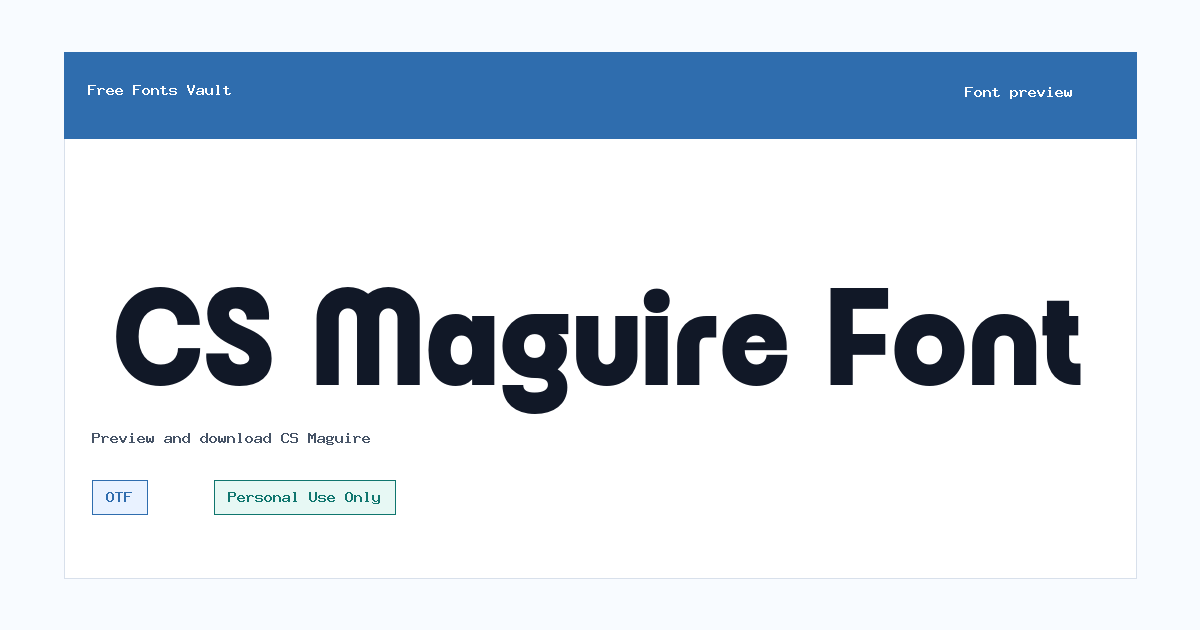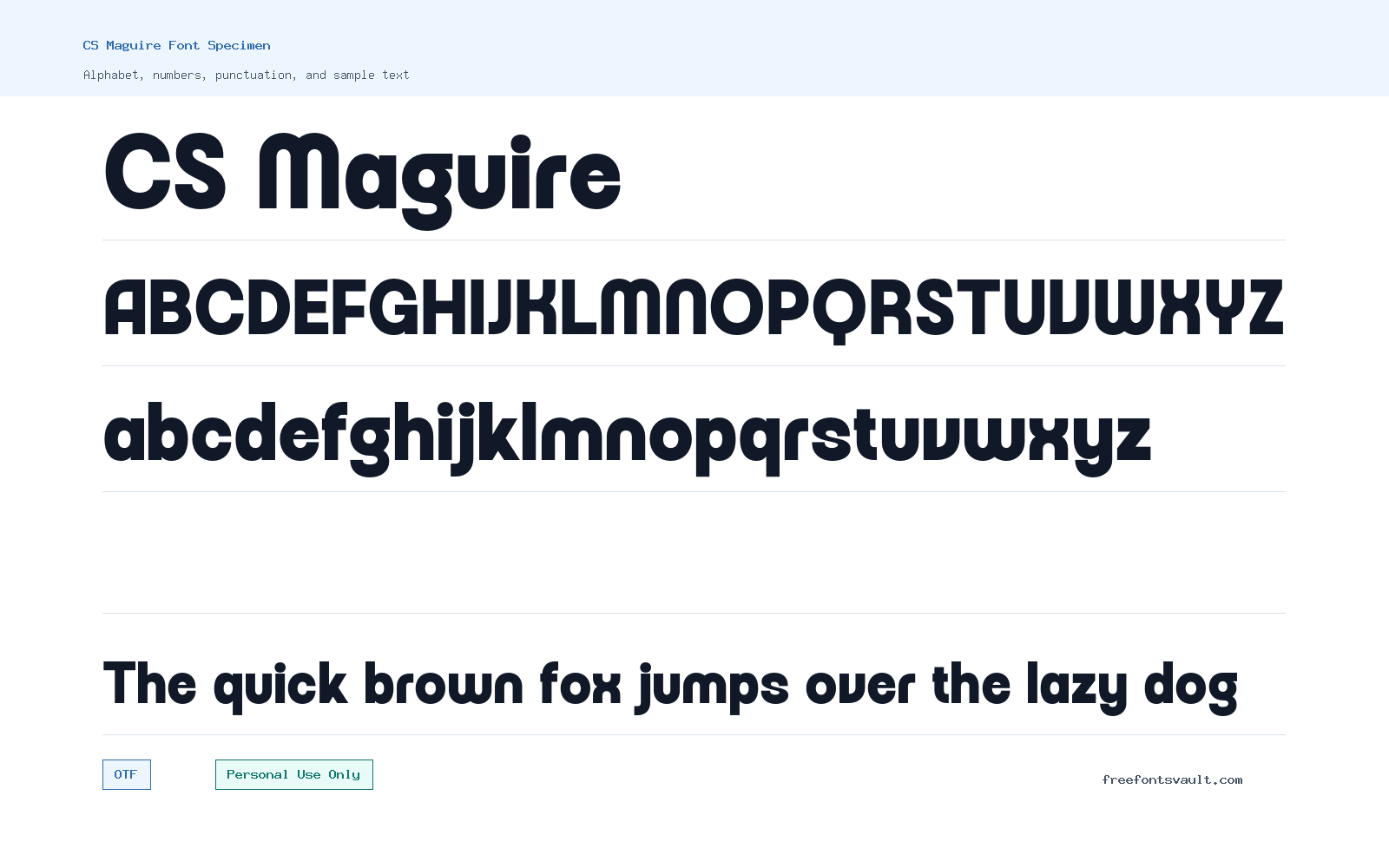
CS Maguire
CS Maguire font.
CS Maguire is a personal-use sans serif font offered as a Regular OTF file. It is a practical font to test when you need clean lettering for short display text, previews, mockups, and non-commercial design drafts.
About CS Maguire
CS Maguire is listed as a sans serif font with one Regular style. Since the download includes a single normal-weight OTF file, it is best approached as a straightforward type choice rather than a large family with many weights. Use the preview box to check how its letters behave in the exact words you plan to use, especially if your design depends on tight spacing, all-caps text, or a short title.
For visitor use, start by testing CS Maguire in headlines, nameplates, simple social graphics, quote cards, logo roughs, and presentation mockups. Keep an eye on readability at small sizes, because a single Regular style may not give you the contrast or hierarchy you would get from a full font family. If you need a complete layout, pair it with a neutral body text font and let CS Maguire handle the shorter, more visible text.
- Short headings, title text, and preview mockups
- Personal design drafts, social graphics, and non-commercial concept work
Before downloading, type your own project text into the preview tool. Check uppercase words, punctuation, numbers, and spacing. For longer paragraphs, pair CS Maguire with a readable body font and reserve this font for short text where its shape and spacing can be seen clearly.
What is CS Maguire best used for?
It is best tested for short text such as headings, display lines, social graphics, nameplates, and personal mockups rather than long body copy.